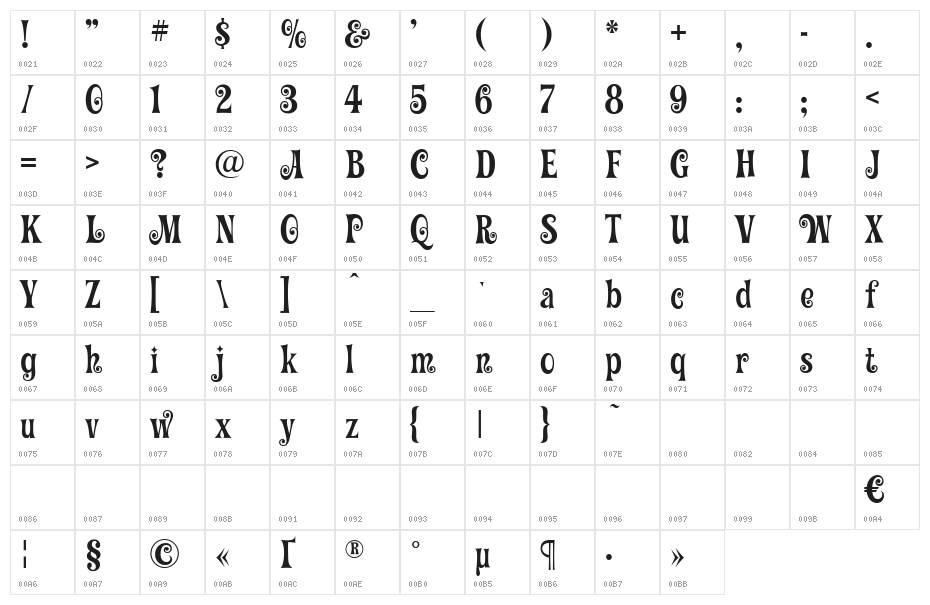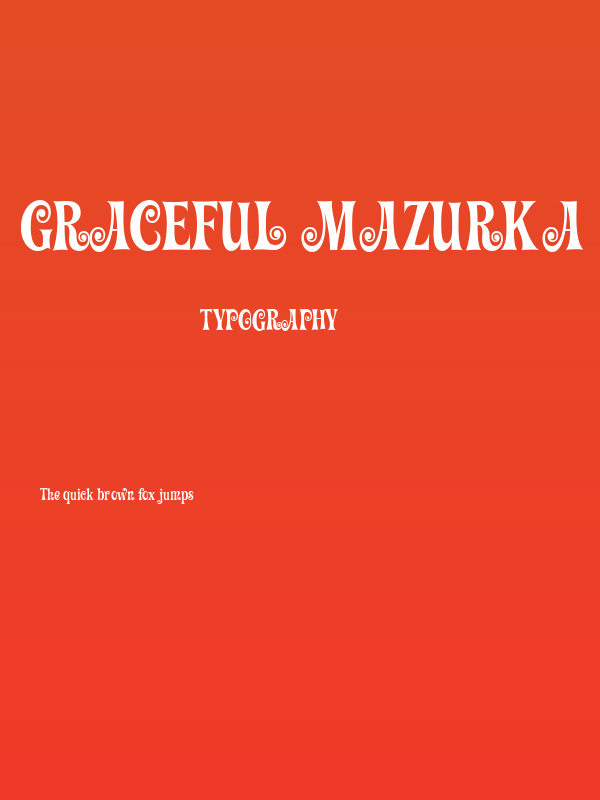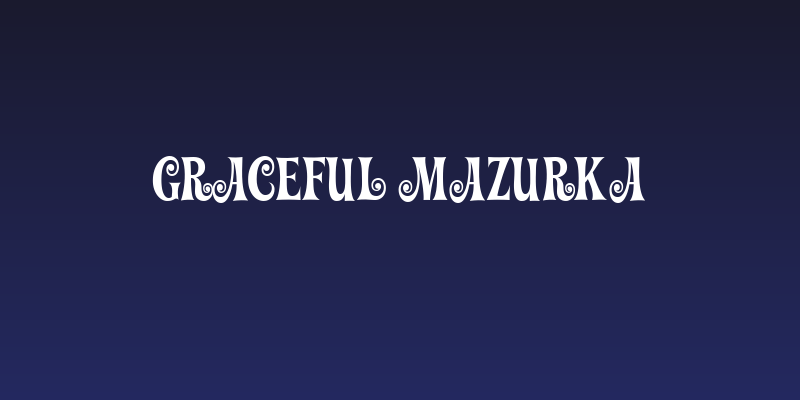
Graceful Mazurka Font
Graceful Mazurka Description
This font features a whimsical and decorative style, characterized by its bold, swirling serifs and playful curves. The uppercase letters are particularly ornate, with intricate loops and flourishes that give them a lively and dynamic appearance. The lowercase letters maintain a similar aesthetic, with a consistent stroke weight that adds to the font's cohesive look. Numbers and special characters are equally embellished, making them stand out with their unique design. The overall impression is one of elegance and creativity, suitable for projects that require a touch of flair and personality.
| Proposed Projects | Ideal for invitations, posters, branding, and any design project that seeks to convey elegance and creativity. |